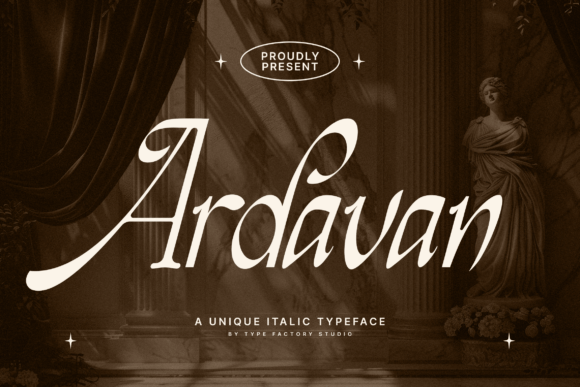
Introduction to Ardavan Font
Ardavan is an italic serif typeface characterized by flowing strokes, refined contrast, and expressive curves.
The letterforms combine classical serif structure with a dynamic slanted rhythm, creating a graceful and distinctive typographic presence This typeface is suitable for editorial layouts, fashion branding, event invitations, posters, packaging, and display headlines that require an expressive serif style.